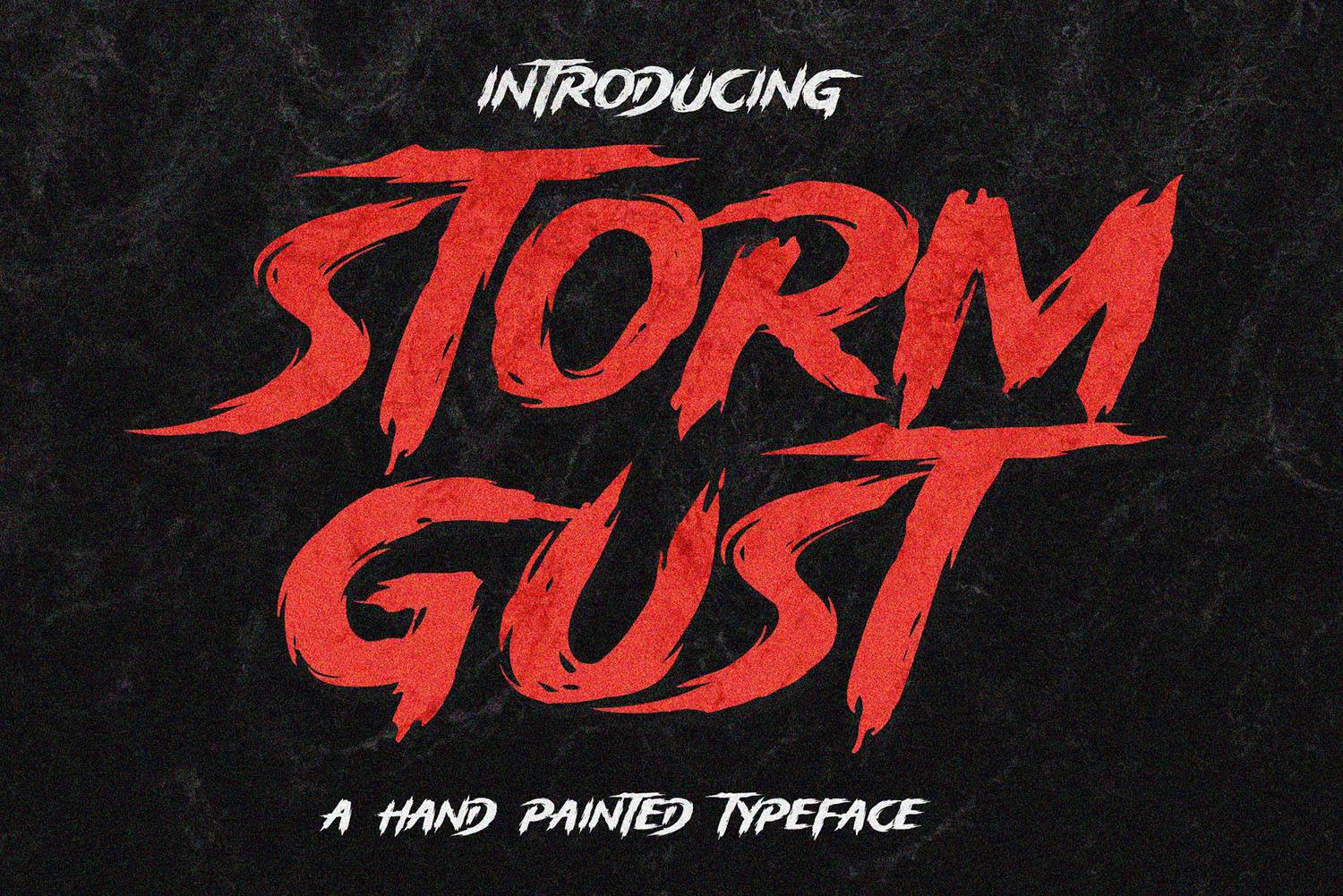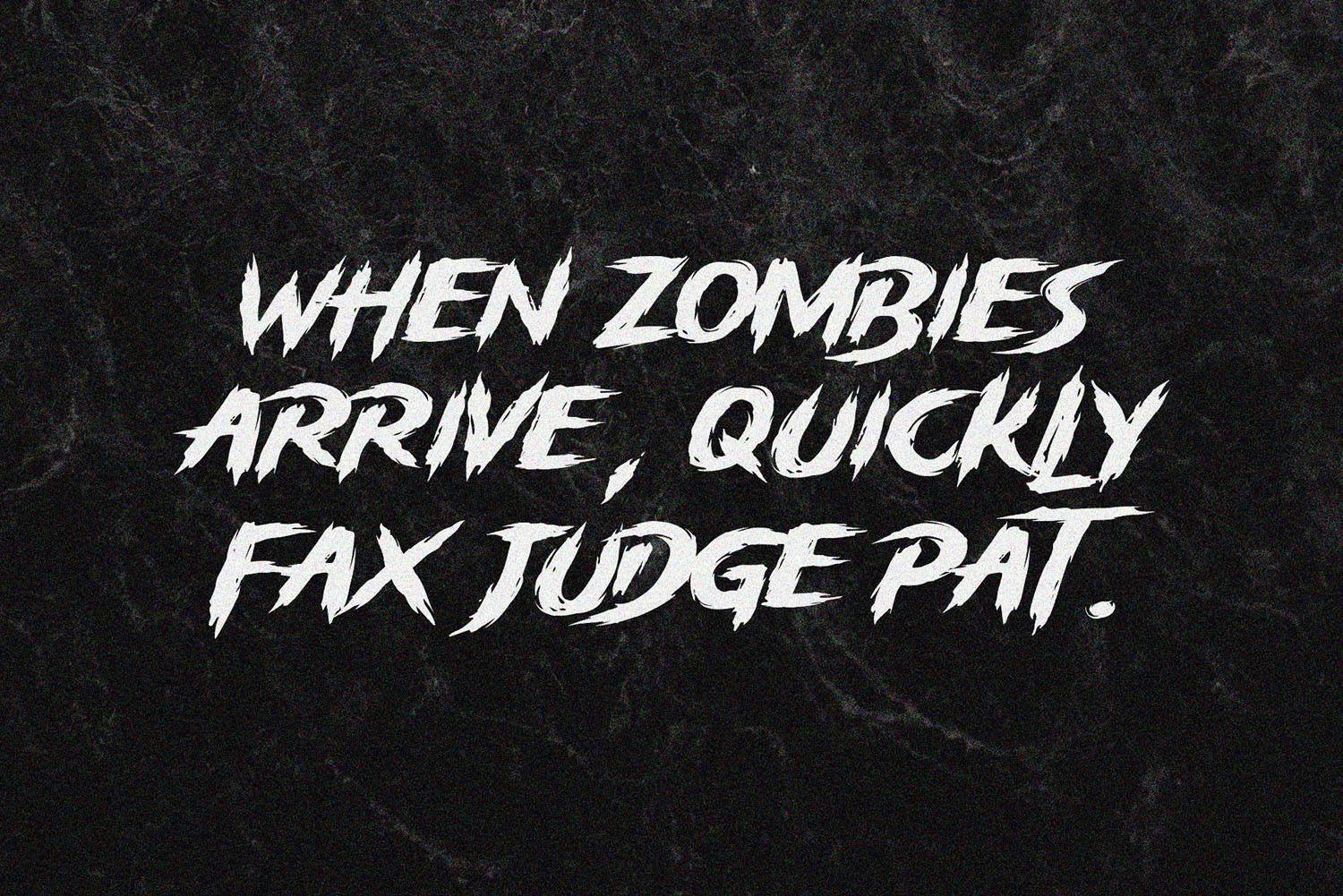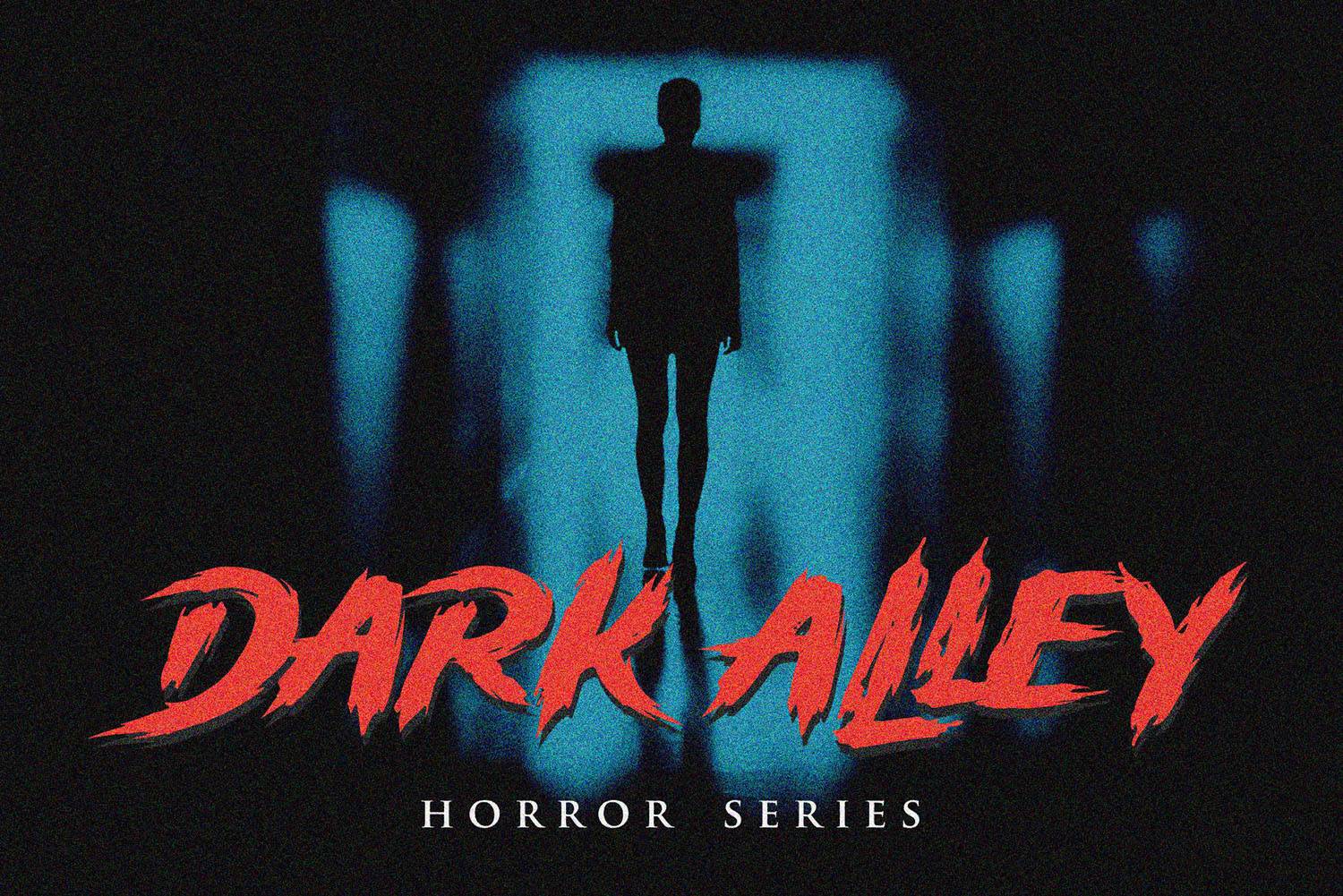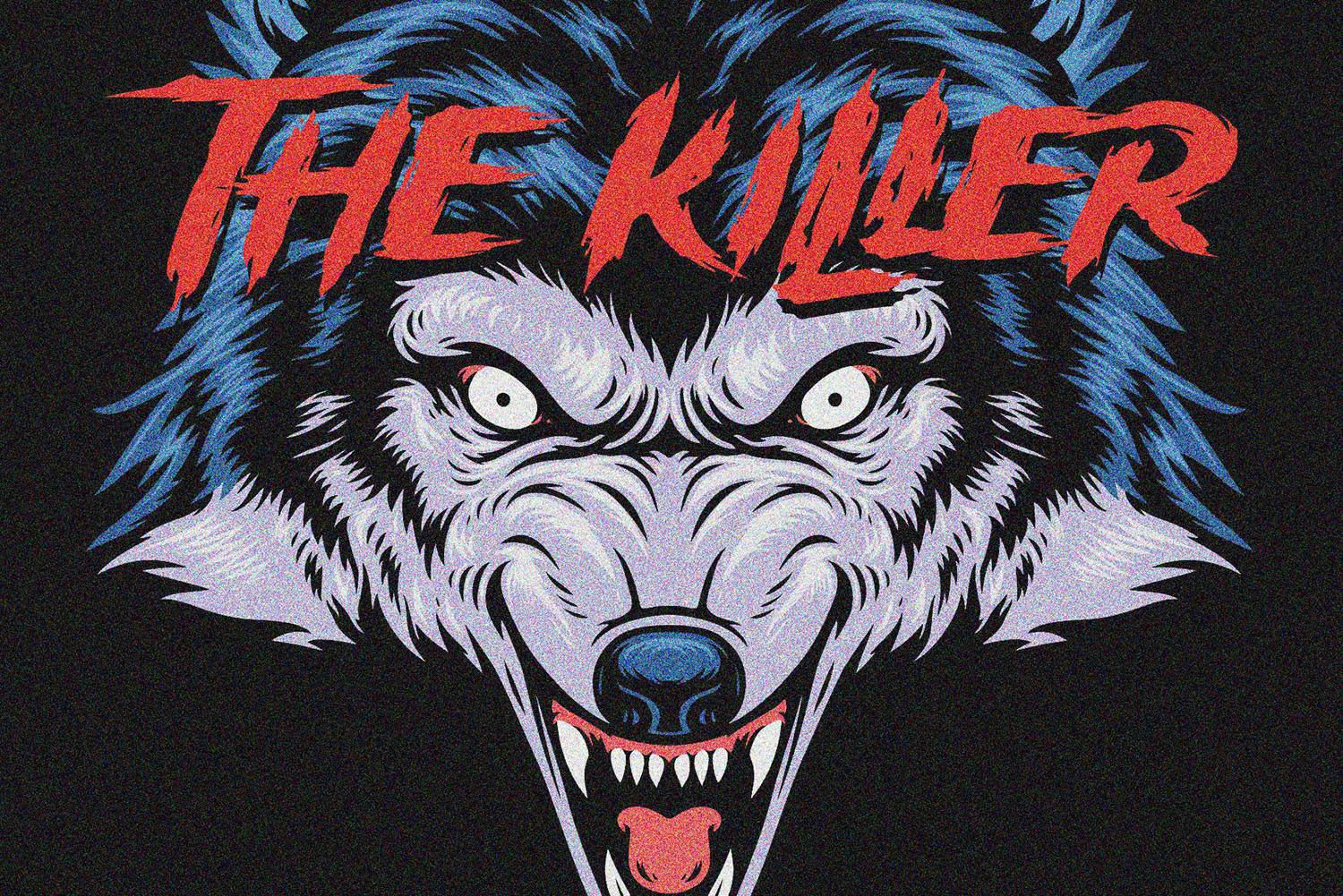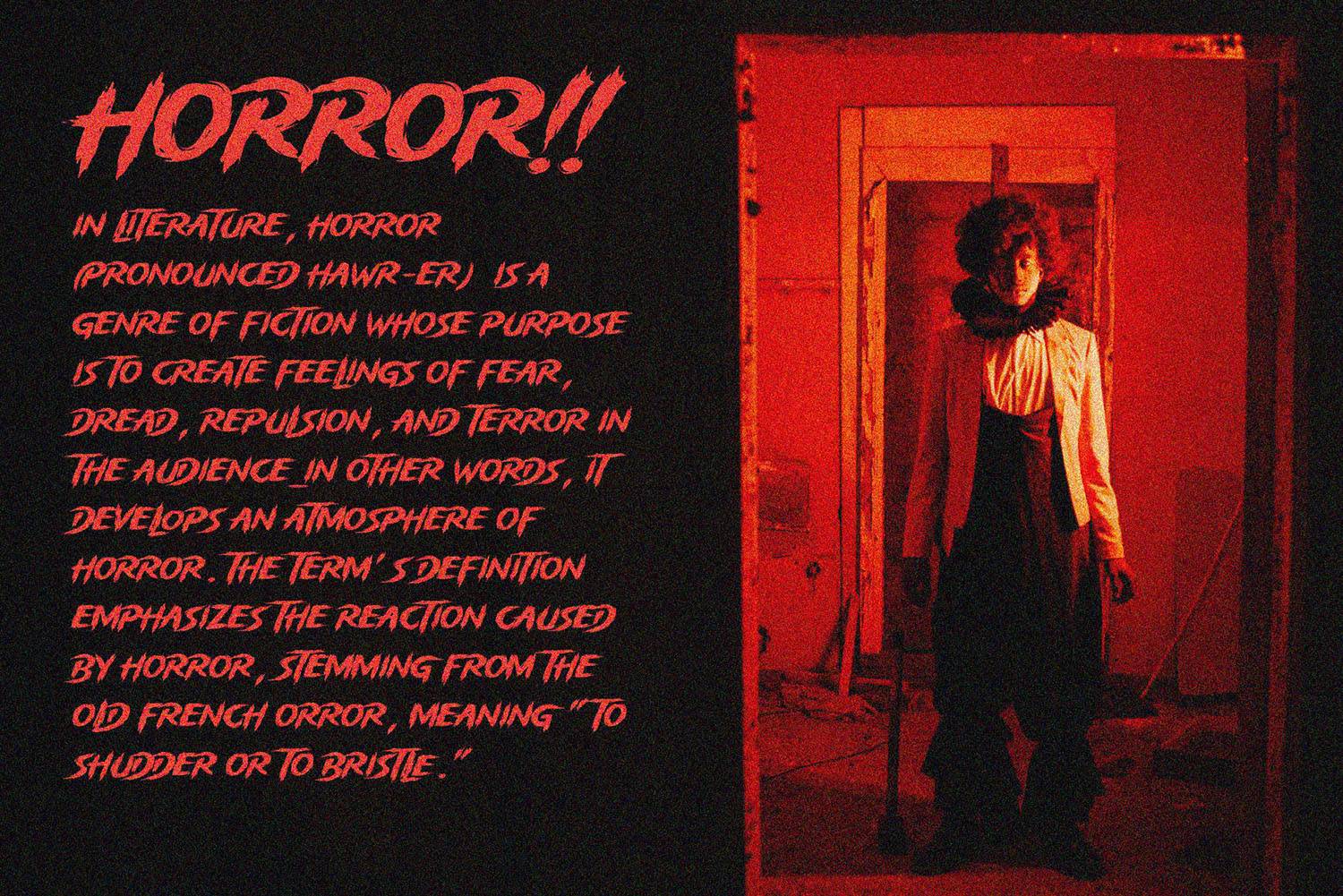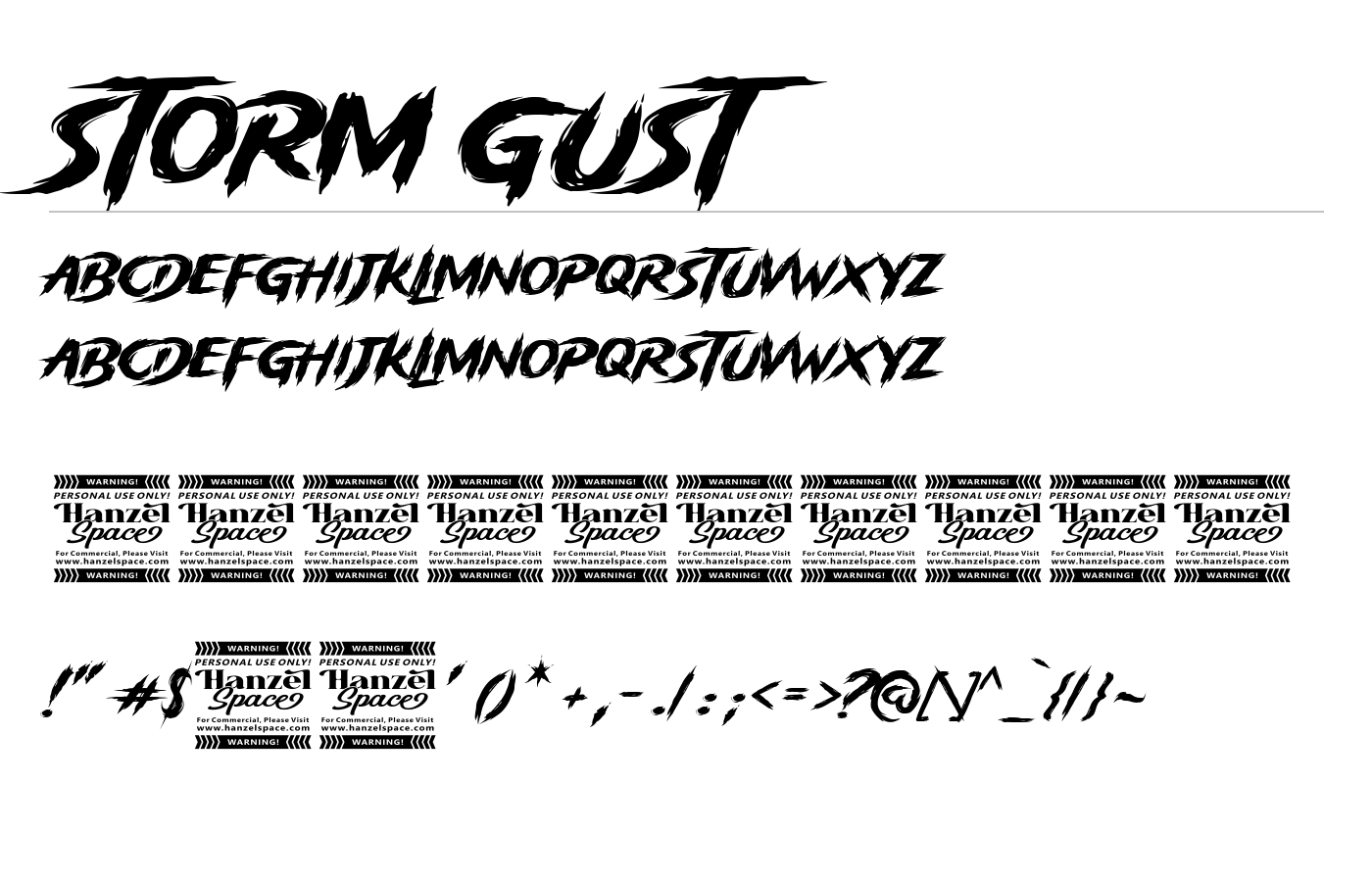
Storm Gust is a dynamic, bold display font with a rough, brushstroke texture that creates a sense of energy and motion. Its all-caps style with sharp, jagged edges and irregular strokes gives it an edgy, rebellious personality, perfect for eye-catching headlines, posters, and branding that aims to convey intensity and excitement. This font thrives in creative, urban, or extreme sports contexts where a strong, impactful statement is needed.
Storm Gust Font
About Storm Gust Font
| Font family | Storm Gust Font |
| Release date | 2021-09-01 |
| Designer | Hanief Farandi |